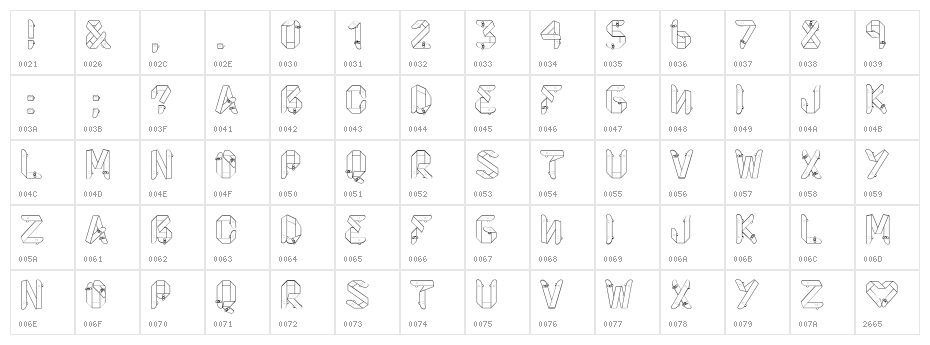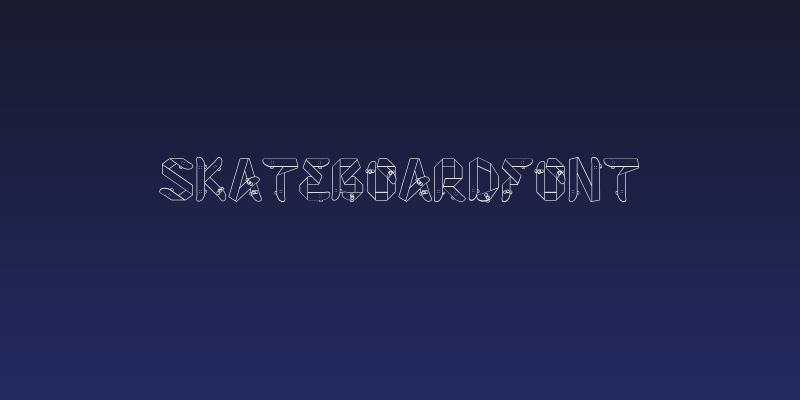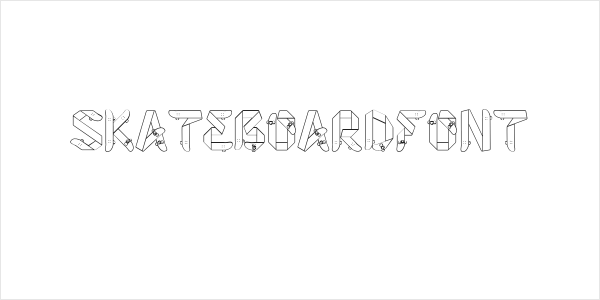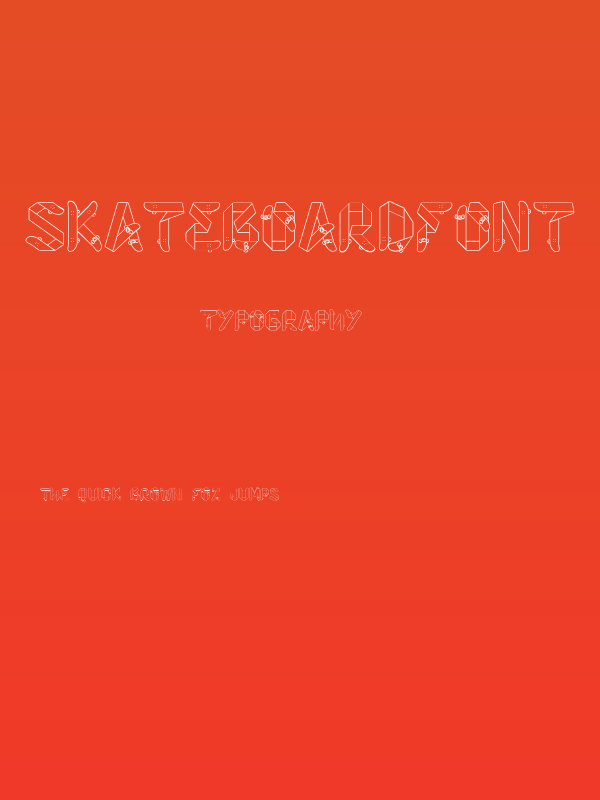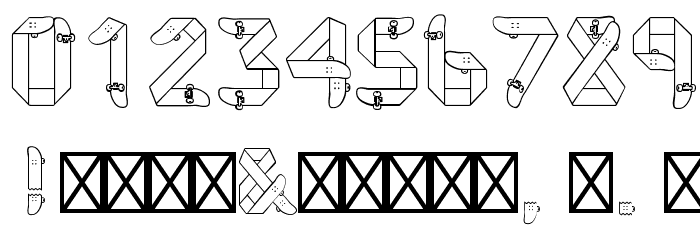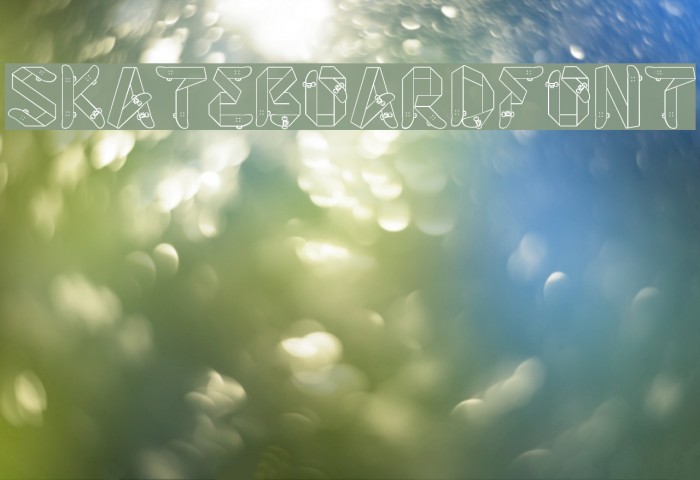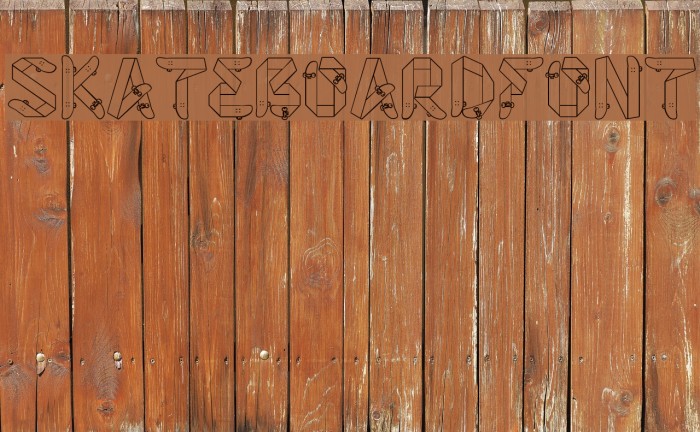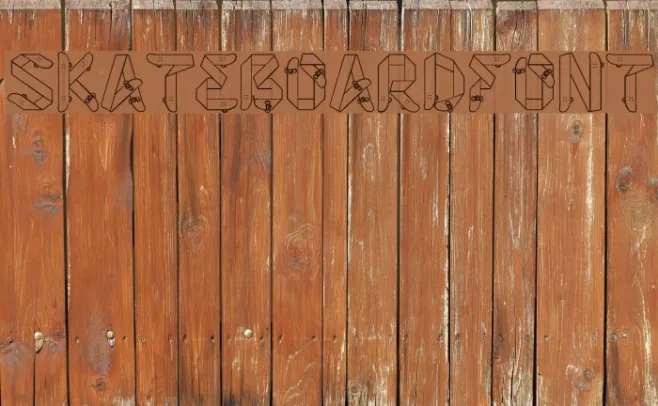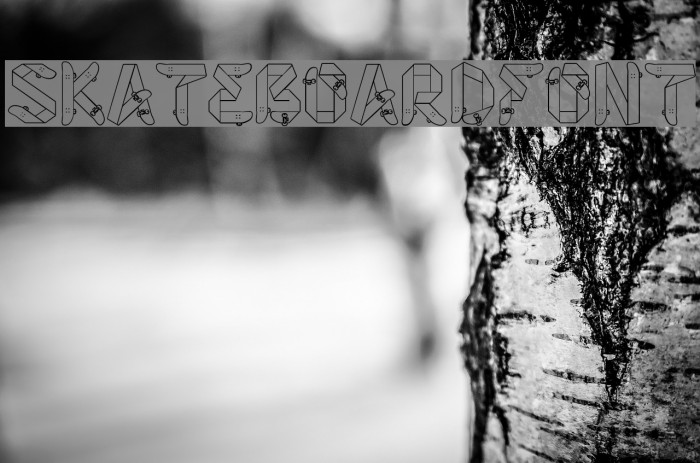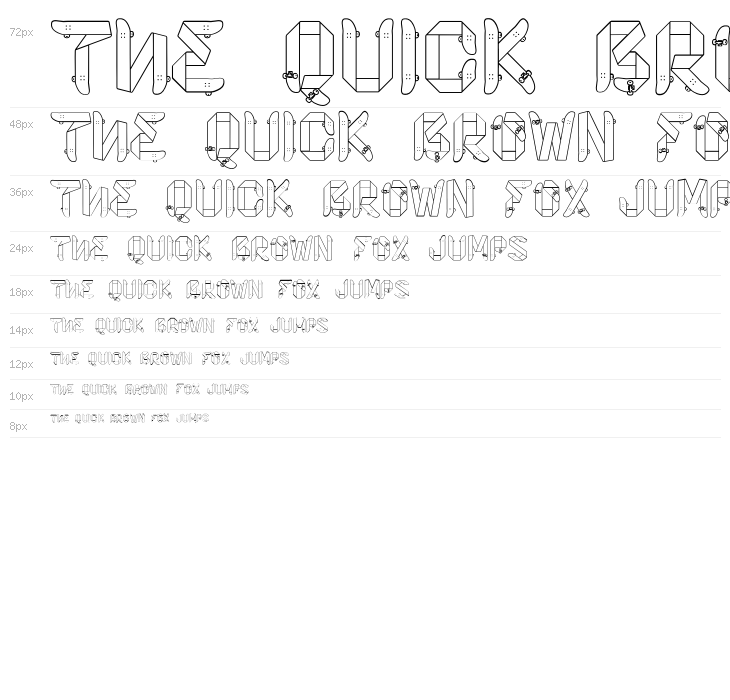
Skateboardfont Font
Skateboardfont Description
This font features a unique and playful design where each character is crafted to resemble a skateboard. The letters and numbers are constructed with a three-dimensional effect, incorporating skateboard elements such as wheels and decks. The style is bold and eye-catching, with a strong emphasis on geometric shapes and lines. The font is highly decorative, making it ideal for projects that require a fun and dynamic aesthetic. The characters are consistent in their thematic representation, maintaining a cohesive look across the entire set.
| Proposed Projects | Ideal for skateboarding event posters, youth-oriented branding, streetwear designs, and any project seeking a fun, energetic vibe. |